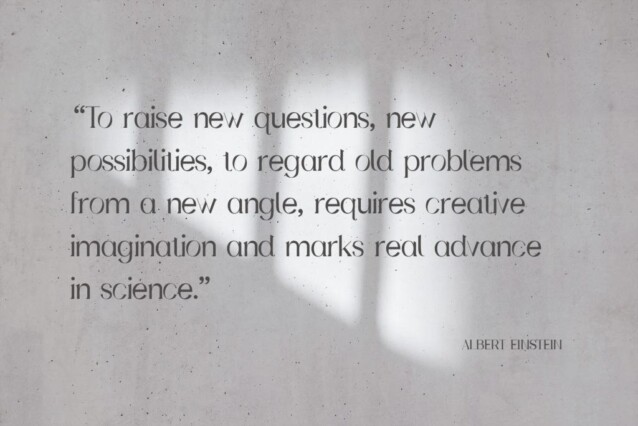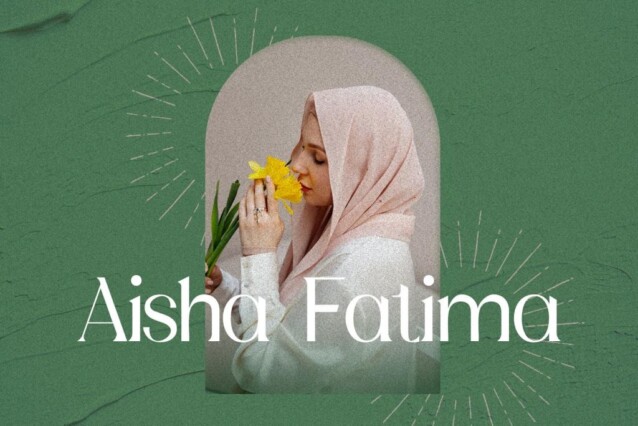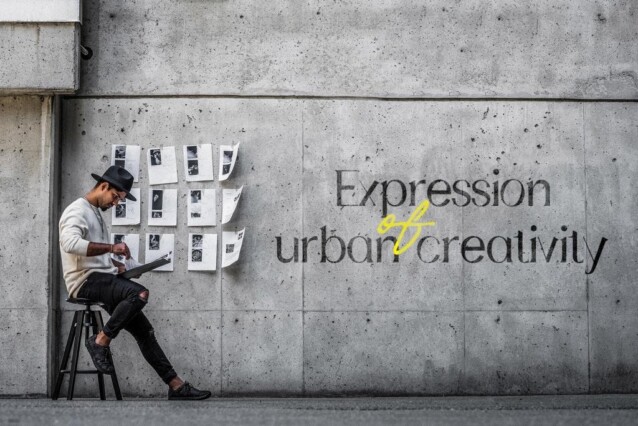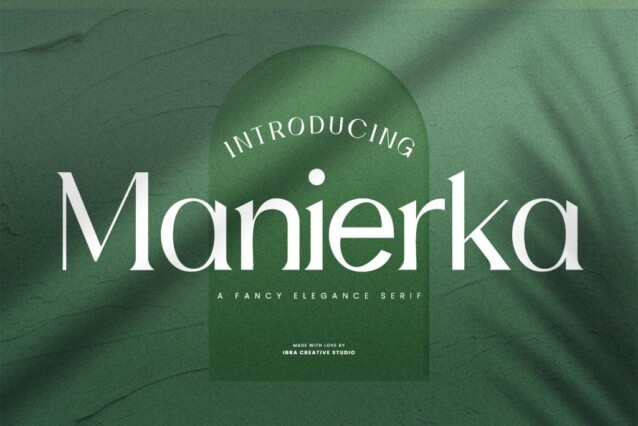
Manierka Font
Manierka Font is a delicate and adaptable serif font manufactured by ibracreative. Its serif design exudes refinement and artistry, with every stroke carefully crafted to create an aura of timeless beauty. The letters are adorned with delicate flourishes and intricate details, reminiscent of a couture fashion piece. The serifs, gracefully elongated and subtly embellished, reflect a sense of grace and grandeur. Manierka’s characters exude an air of exclusivity, making it the perfect choice for high-end branding, upscale editorial layouts, and prestigious events. This font encapsulates the epitome of fancy elegance, effortlessly elevating any design to a realm of opulence and style.